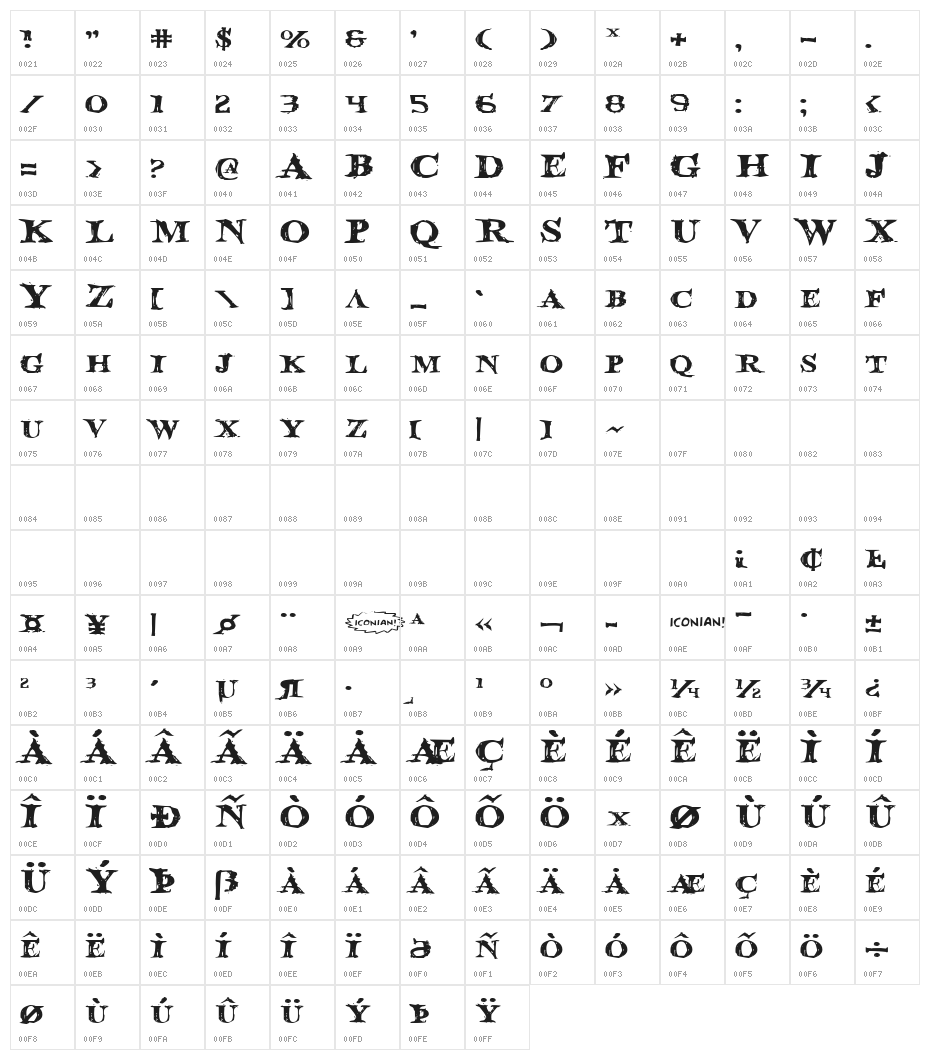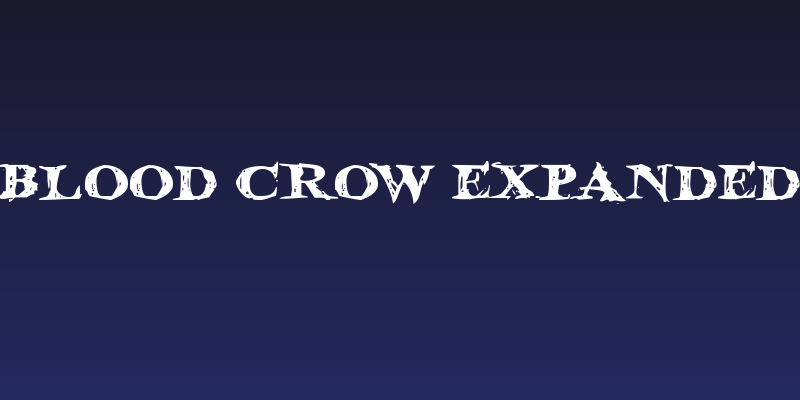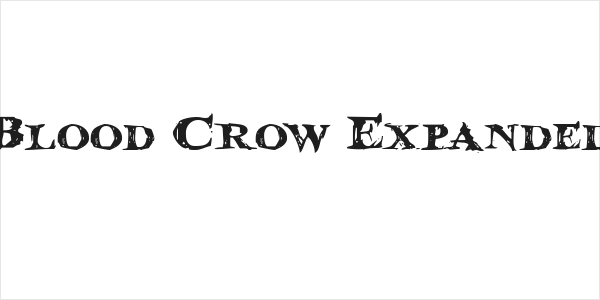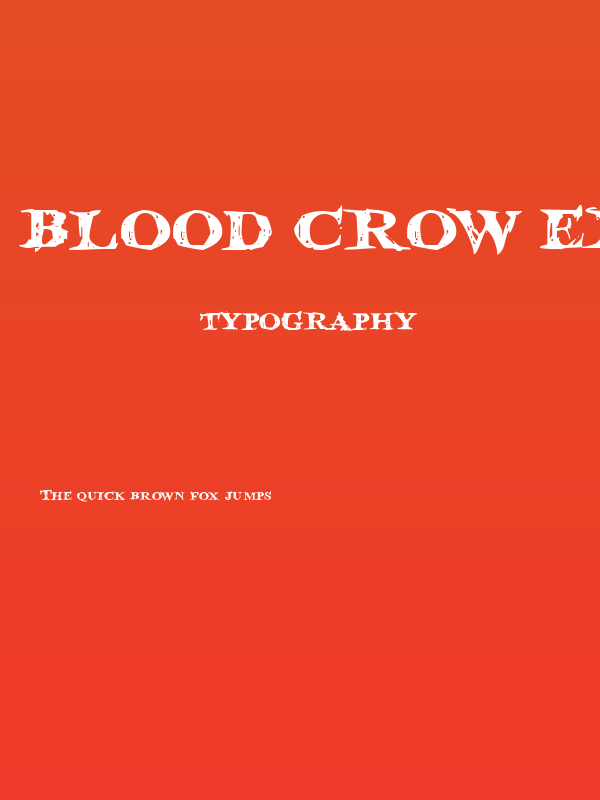
Blood Crow Expanded Font
Blood Crow Expanded Description
This font features a bold and distressed style, characterized by rough, jagged edges and a grungy appearance. The letters have an uneven texture, giving them a worn and weathered look, reminiscent of old, decayed surfaces. The uppercase and lowercase letters maintain a consistent style, with each character displaying unique imperfections that add to the overall aesthetic. Numbers and special characters follow the same design, ensuring a cohesive appearance throughout. This font is ideal for projects that require a dramatic and edgy feel, such as horror-themed designs or rebellious branding.
| Proposed Projects | Ideal for horror-themed designs, rebellious branding, album covers, and edgy posters. |